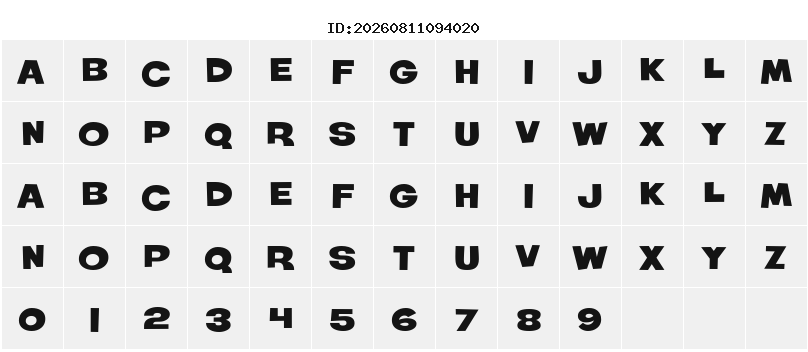
• Font Name: Roller World BTN Wide
• Full Font Name: Roller World BTN Wide Bold
About Roller World BTN Wide.ttf
Roller World BTN Wide.ttf is a modern, elegant sans-serif font designed for ultimate readability and visual harmony. Perfect for branding, headlines, web design, and print materials.